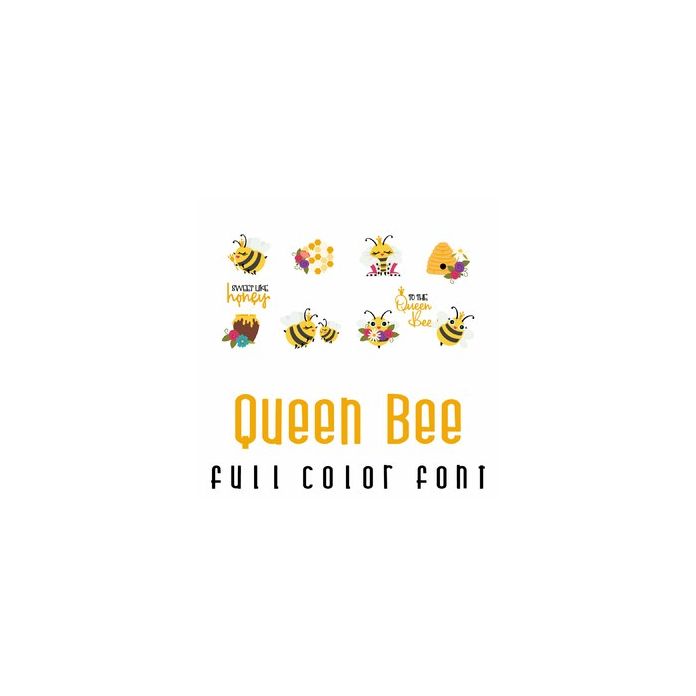
This adorable full-color doodlebat font features adorable Queen bees, pretty florals and honeycomb. Perfect for Mother's Day, cards, crafts, gifts, planner stickers, scrapbook pages and more!